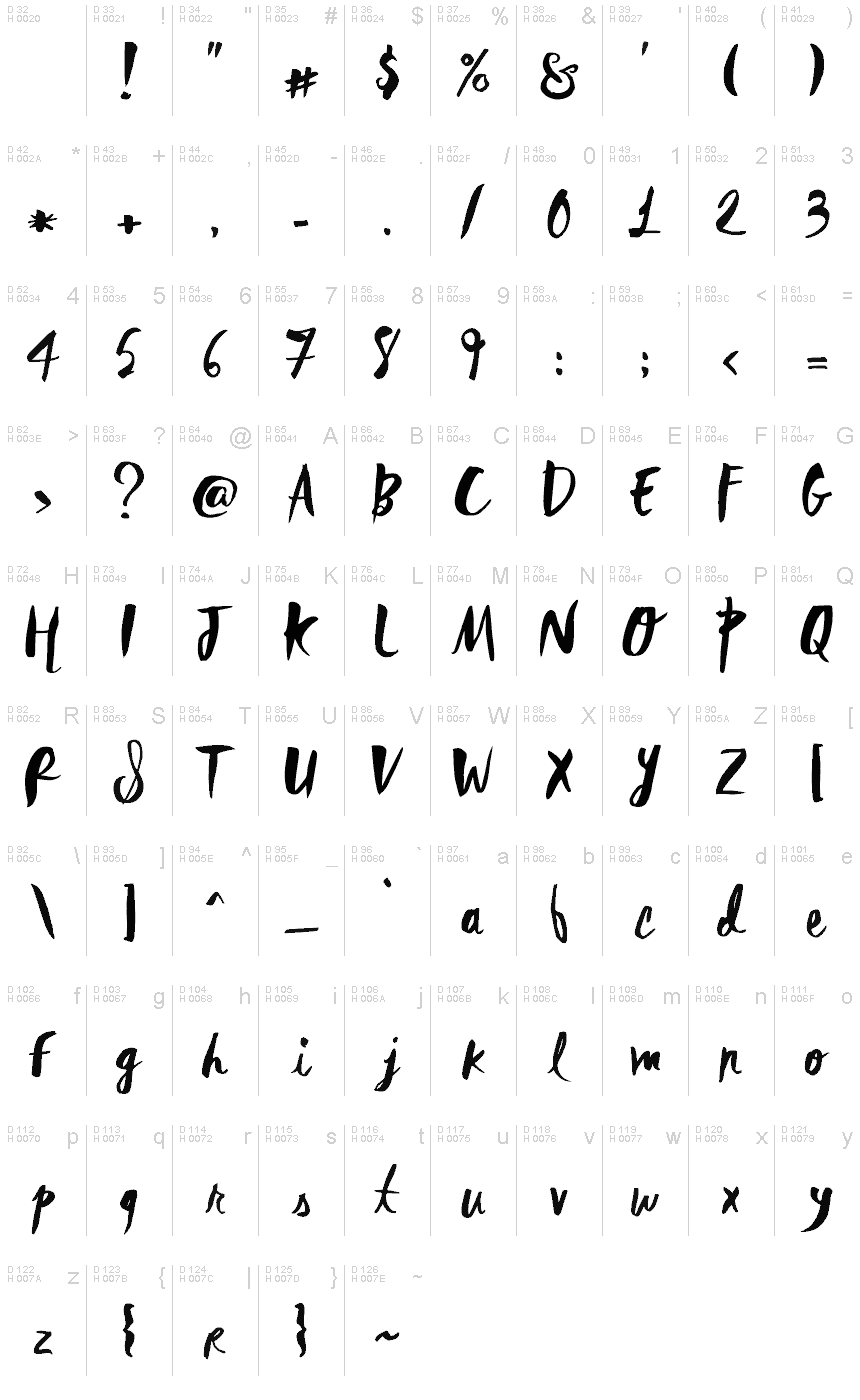
Rebel Heart
Font created by me inspired by Rebel Heart album by Madonna.
All characters are taken from the album booklet and others I had to create / adapt.